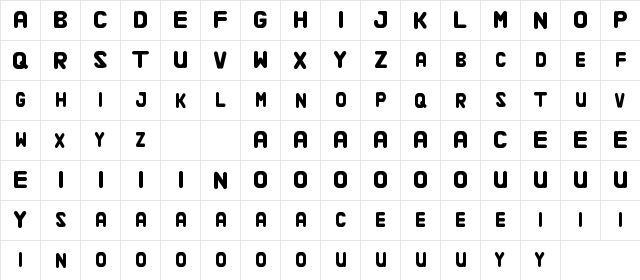
Alaqua Demo Regular
| Foundry | Edric Studio |
| Designer | Renata Insan C |
Design Context for Alaqua Demo Typeface
Alaqua Demo is a composed and adaptable typeface that performs quietly and consistently across a wide range of design contexts.